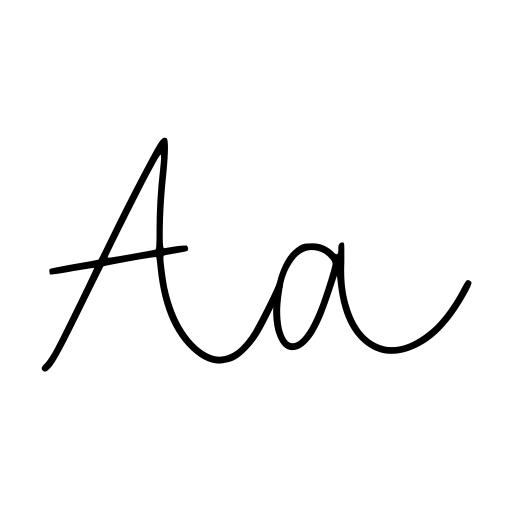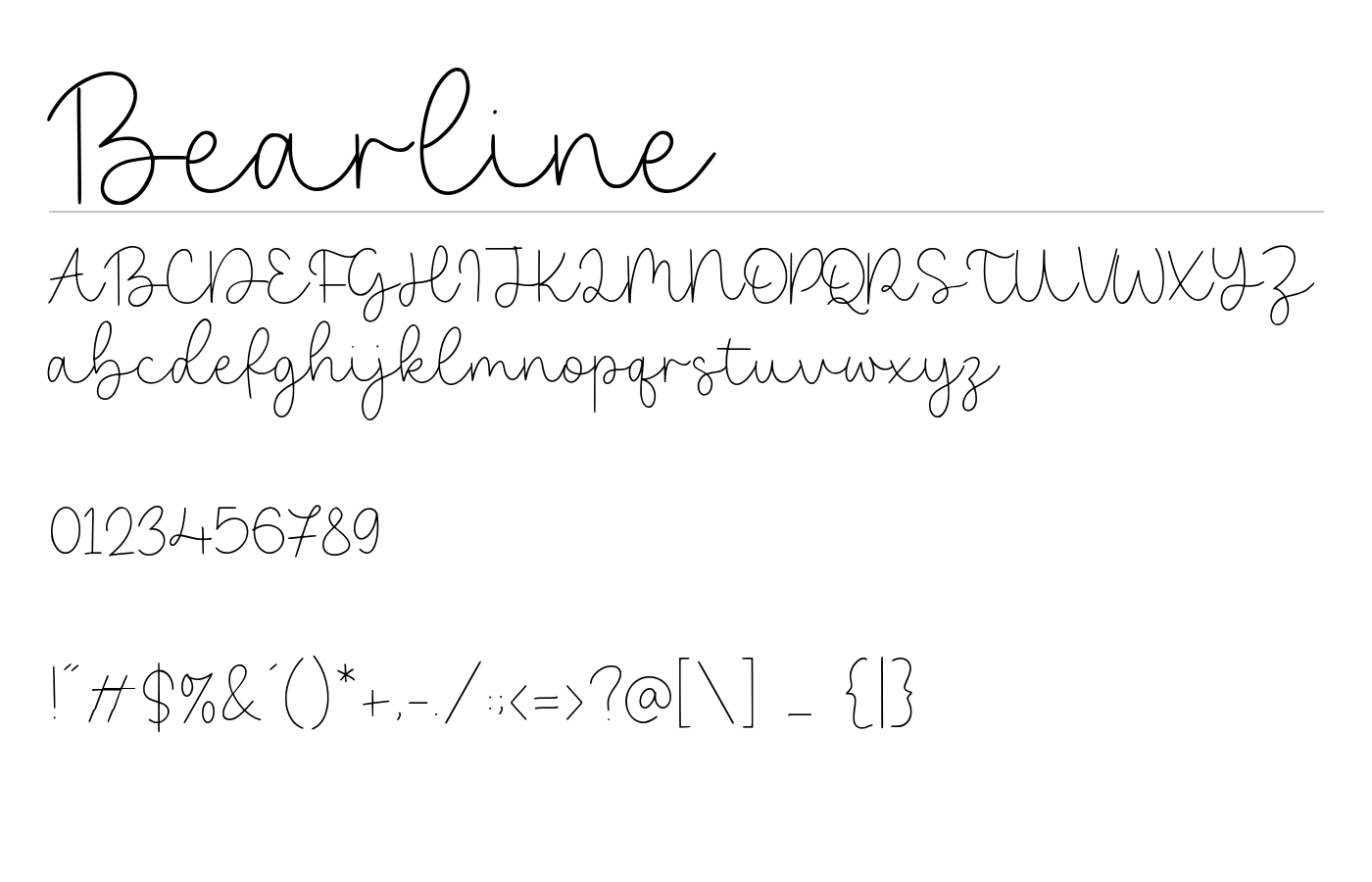
Bearline is a delicate, handwritten script font featuring thin, fluid strokes with a natural, airy feel. Its elegant, casual style makes it perfect for creative projects, invitations, branding, and websites that seek a personal, approachable touch. The font’s lightweight lines and graceful letterforms evoke a sense of warmth and friendliness, ideal for designs that require a subtle yet charming handwritten look.
Bearline Font
About Bearline Font
| Font family | Bearline Font |
| Designer | Letterative Studio |